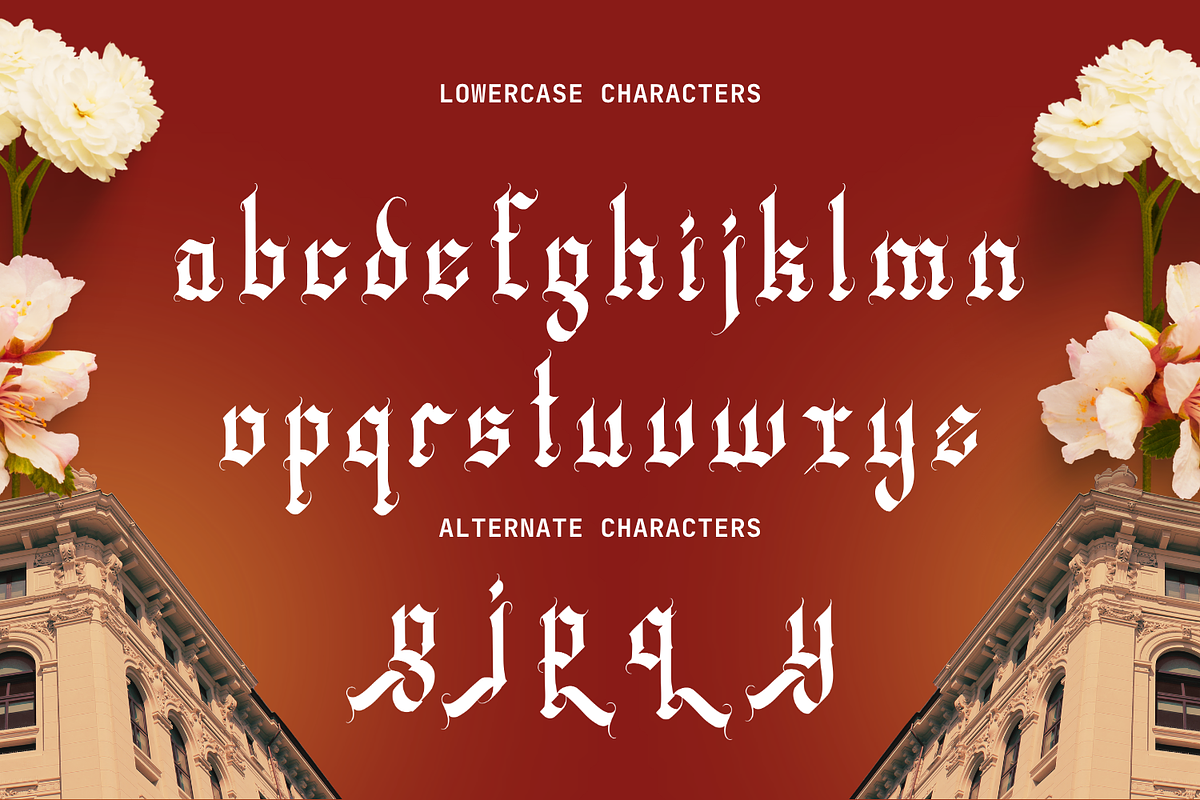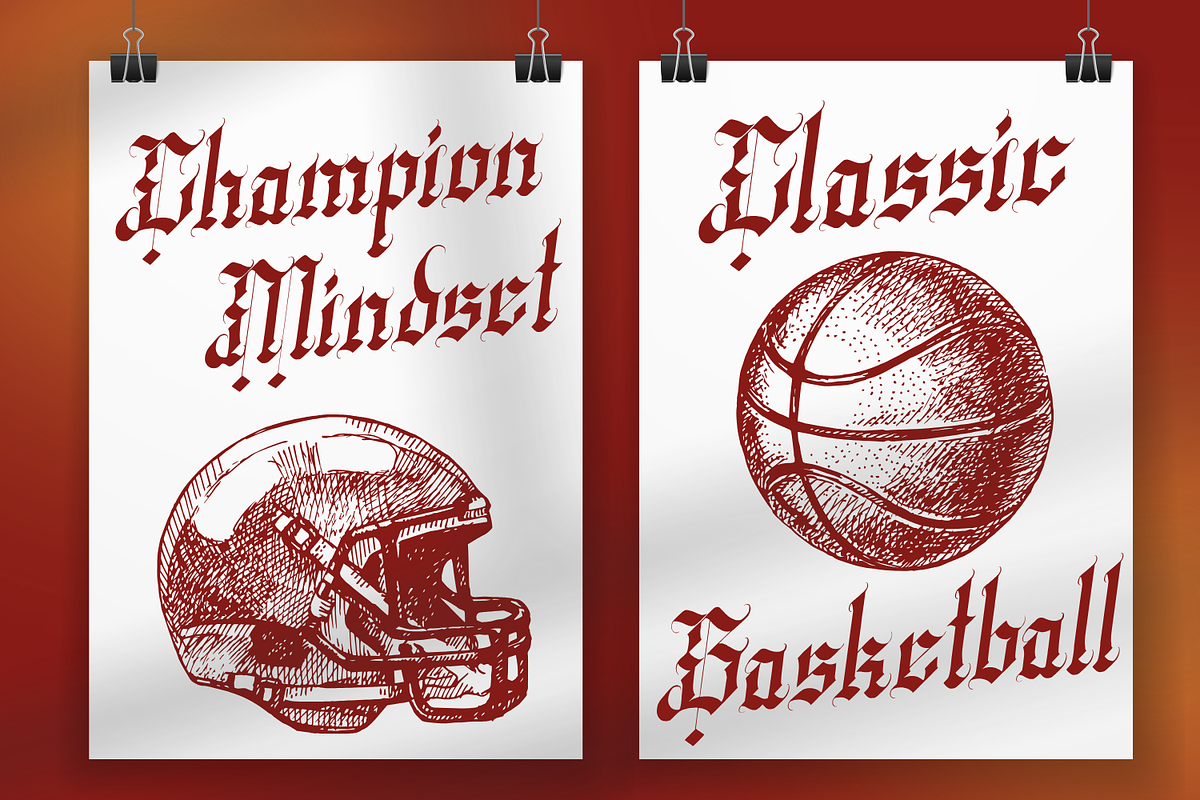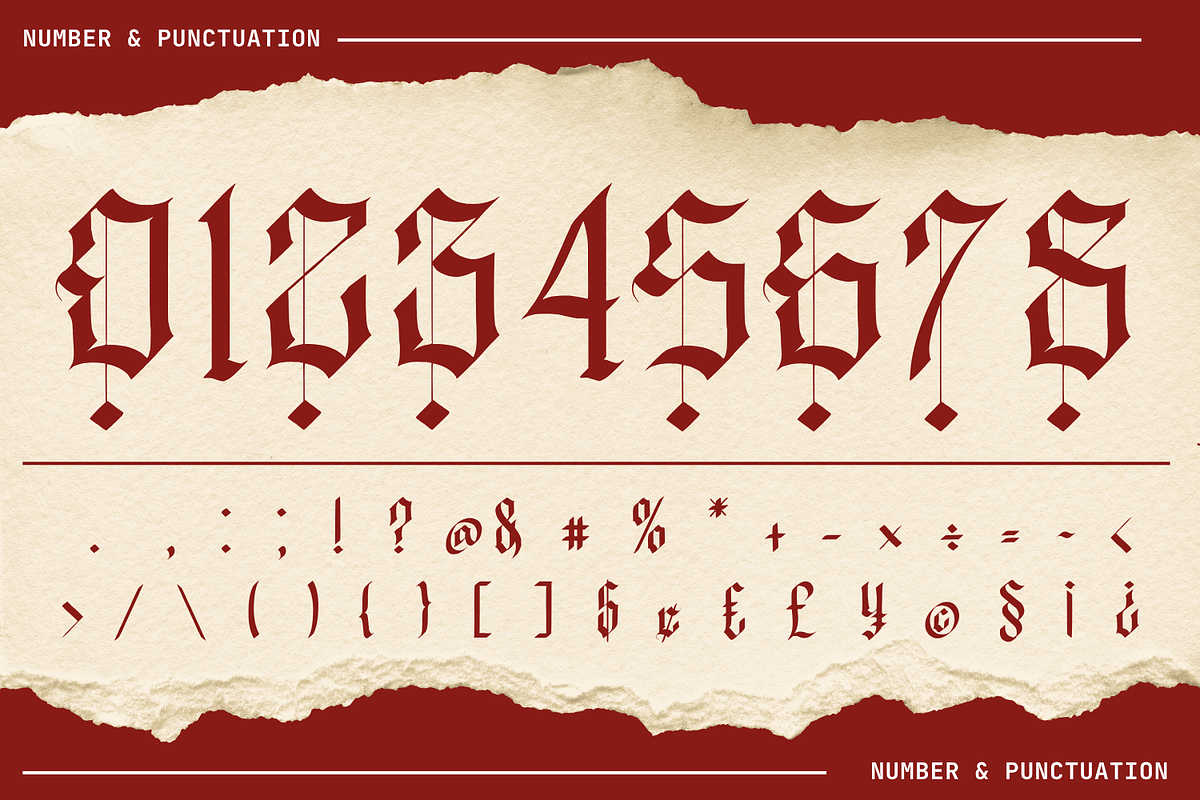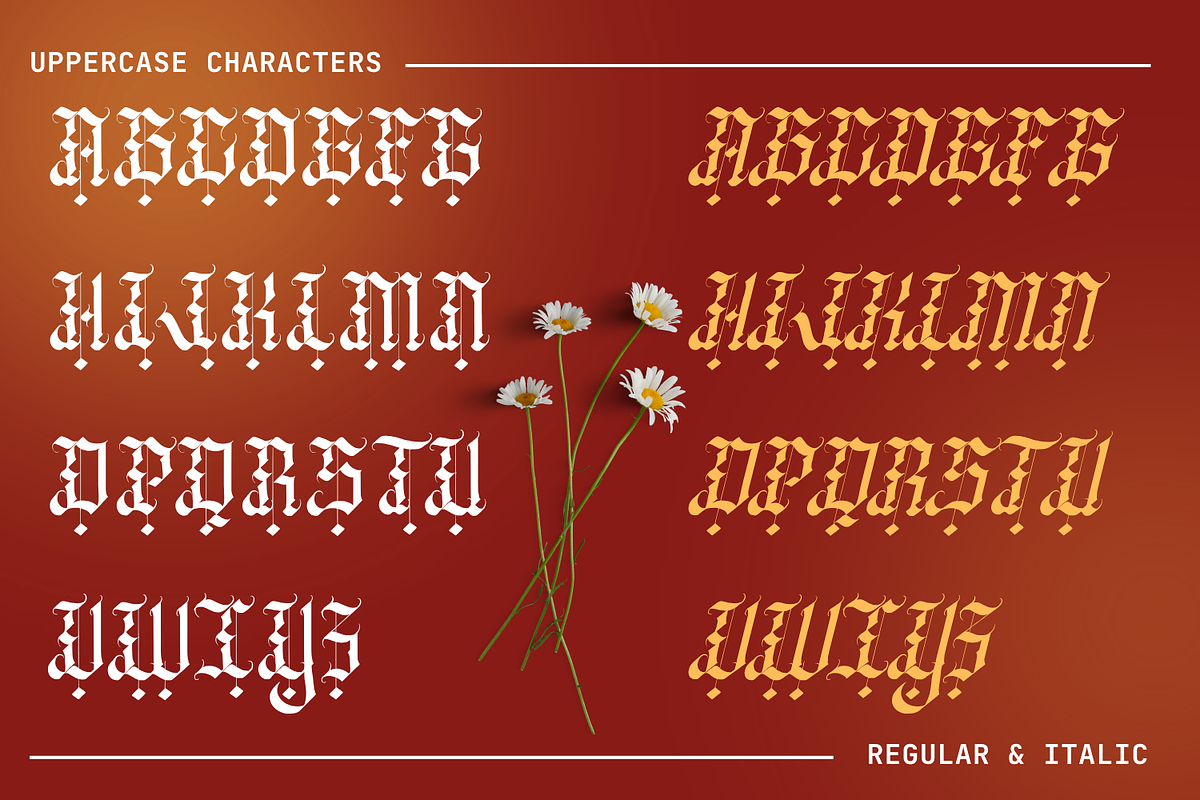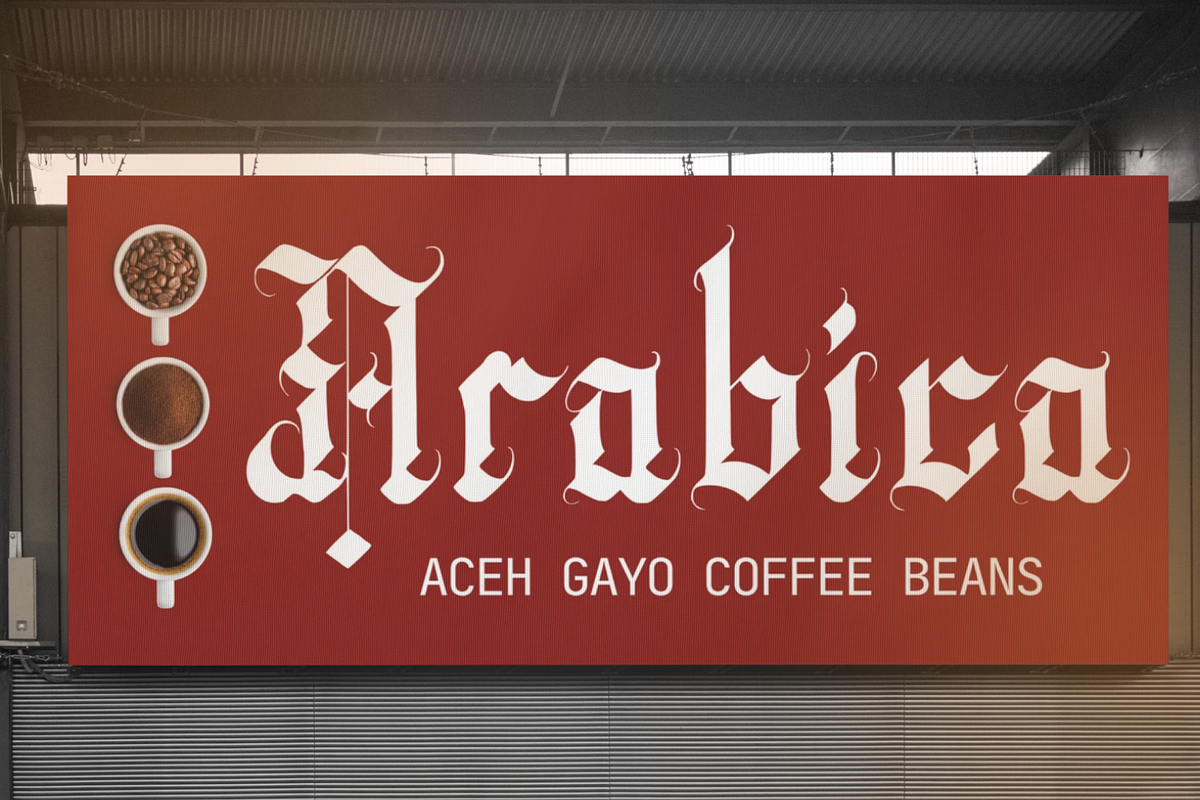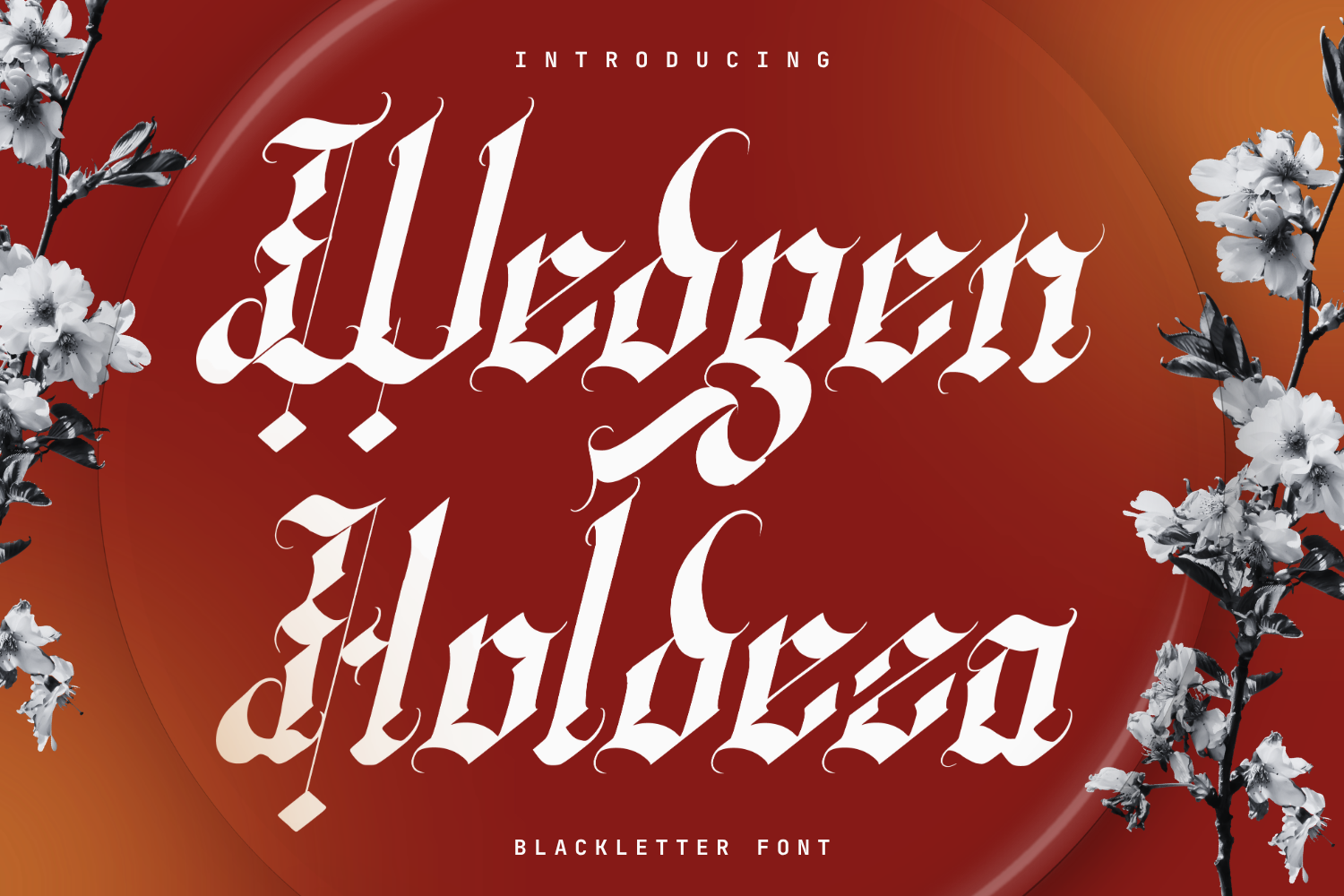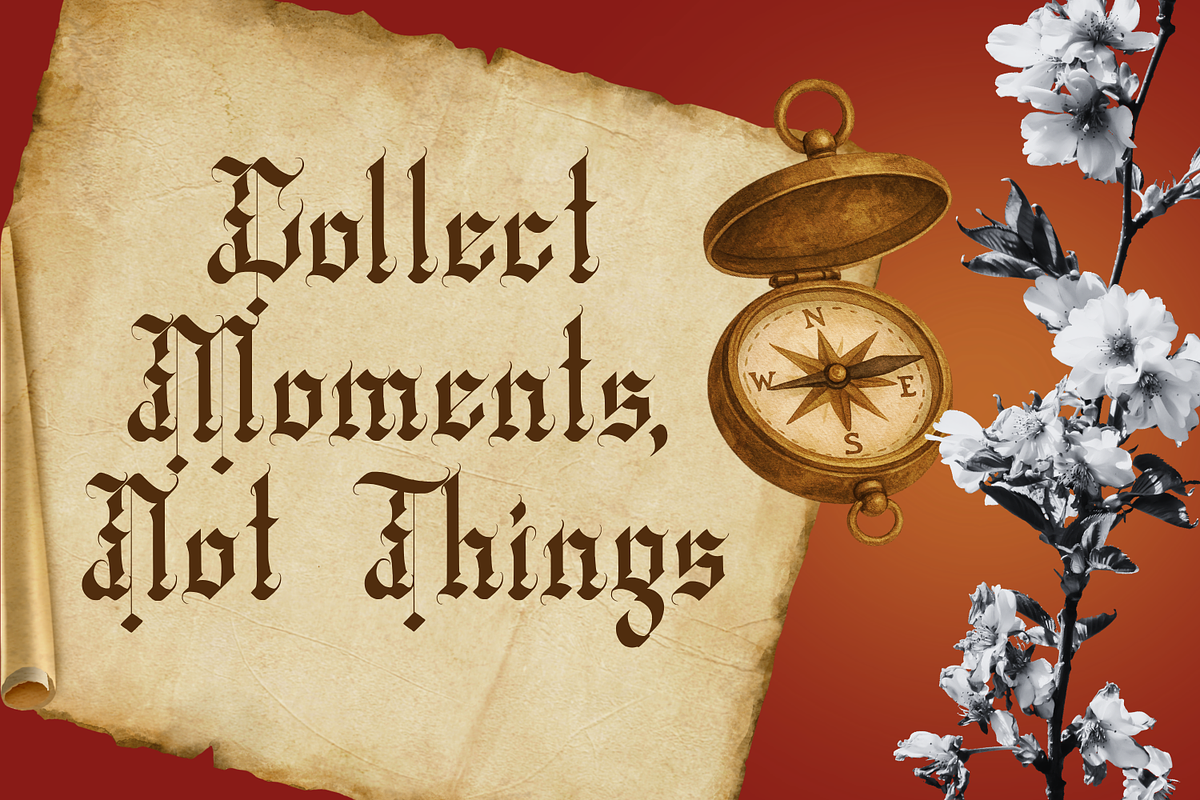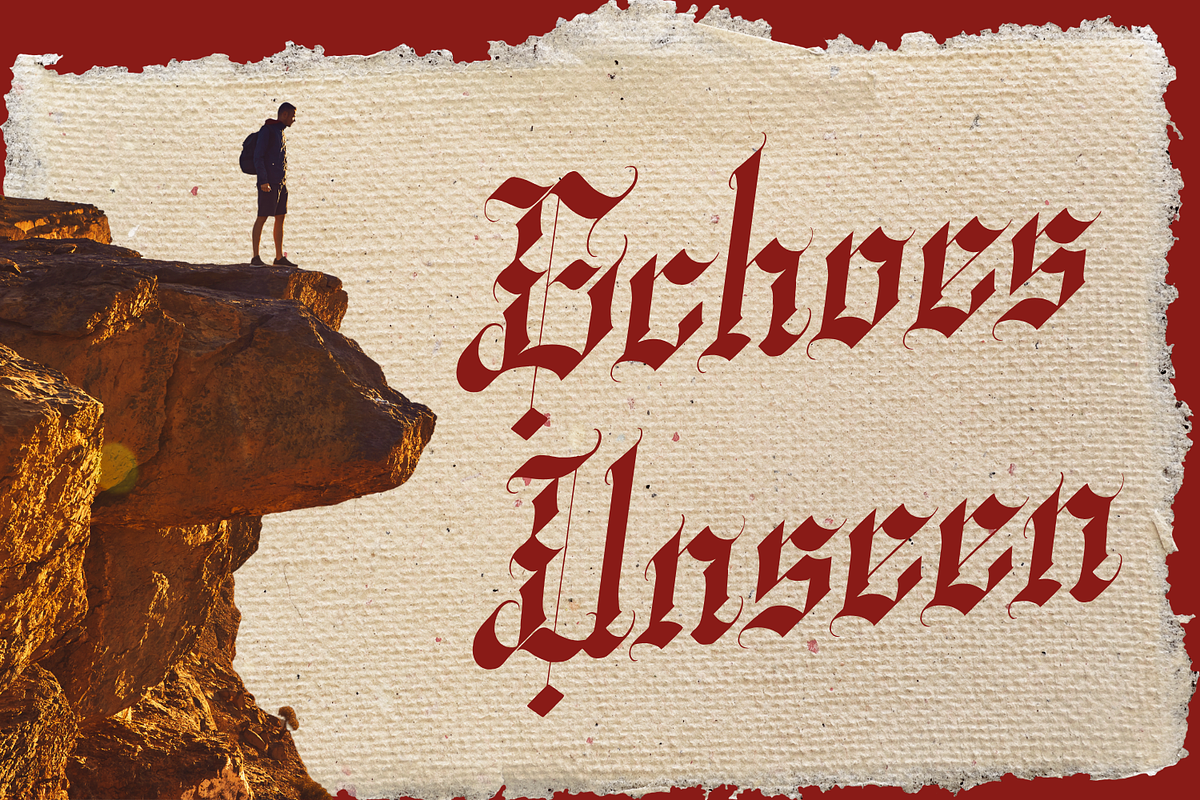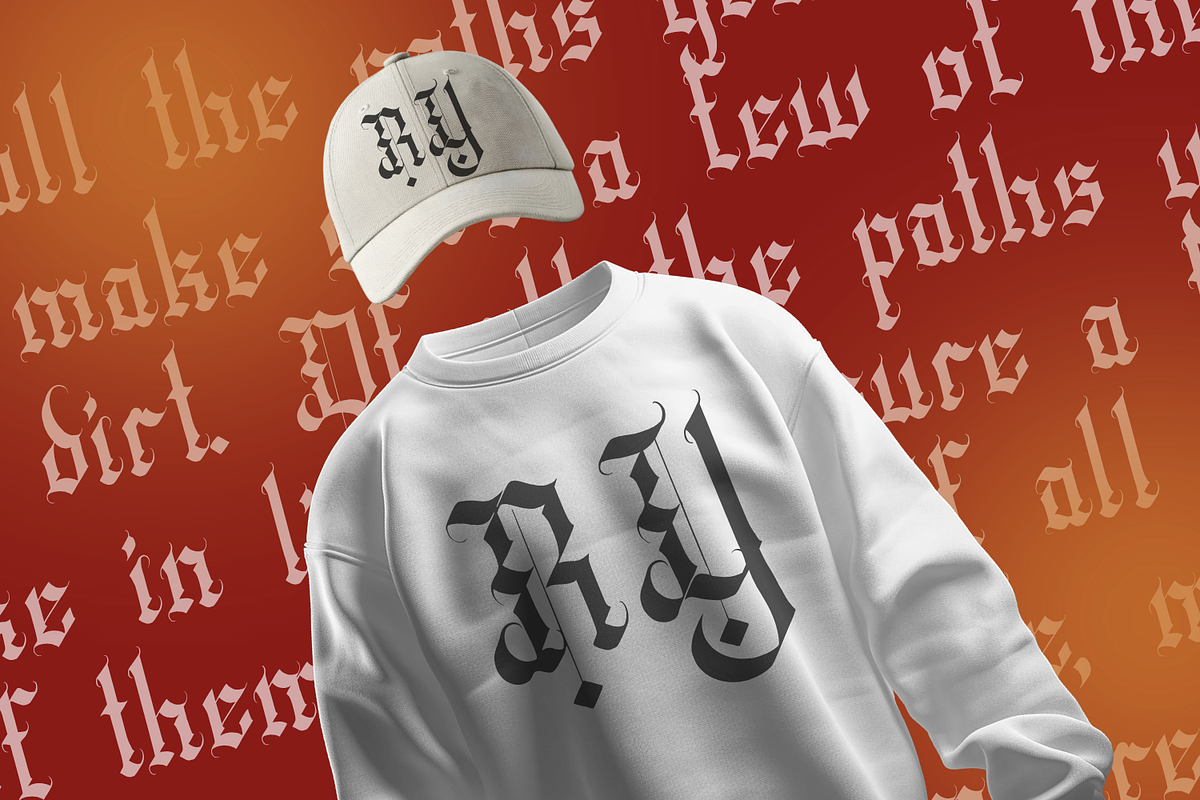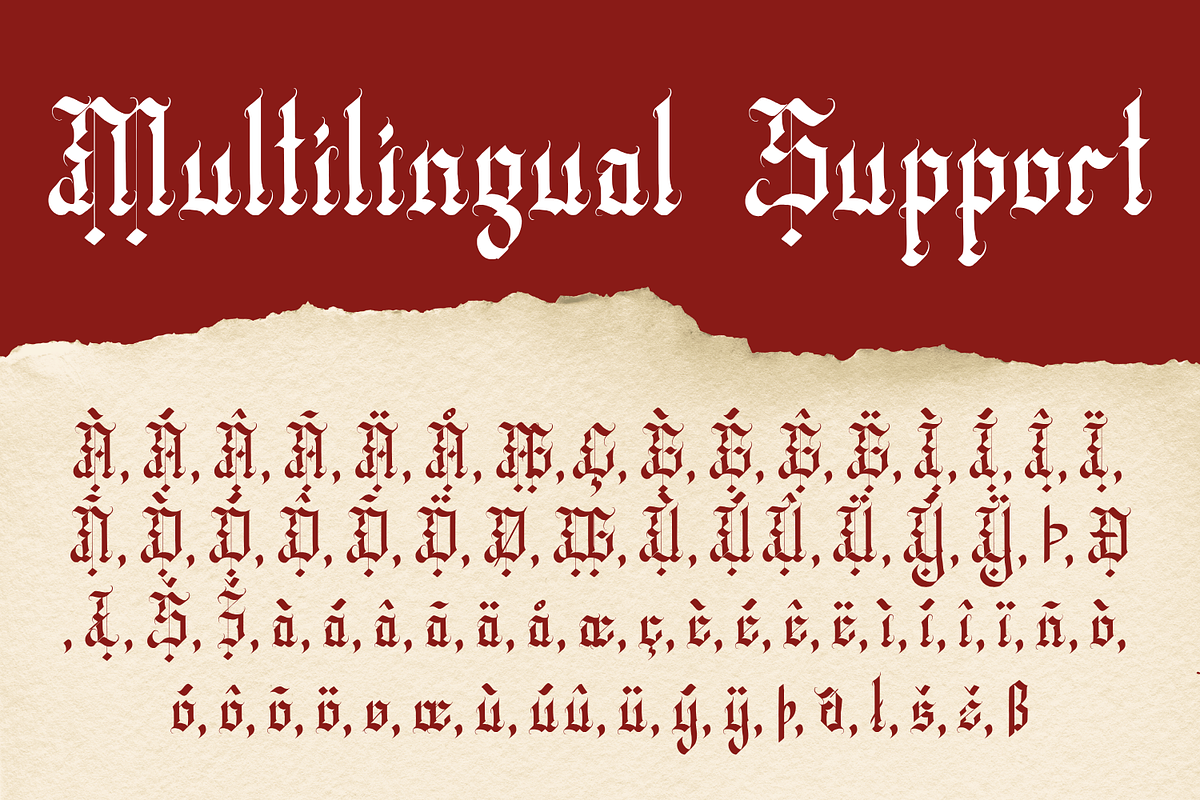
Wedgen Holdeza Blackletter Font
Elevate your design projects with Wedgen Holdeza, a classic and striking blackletter font. Designed to bring a strong, bold, and vintage aesthetic to your creative work, this typeface bridges the gap between traditional gothic calligraphy and modern street style.
Two distinct styles: Regular and Italic.
A complete set of Uppercase characters.
A complete set of Lowercase characters.
Beautifully crafted Alternate characters to give your typography a custom, unique feel
Sports & Athletics: Create dynamic and bold graphics for sports themes, such as basketball and football posters.
High-End Branding: Achieve visual precision for elegant branding, editorial designs, or architectural visual presentations.
Apparel & Merchandise: Ideal for tattoo lettering, streetwear clothing brands, and vintage logo creation.